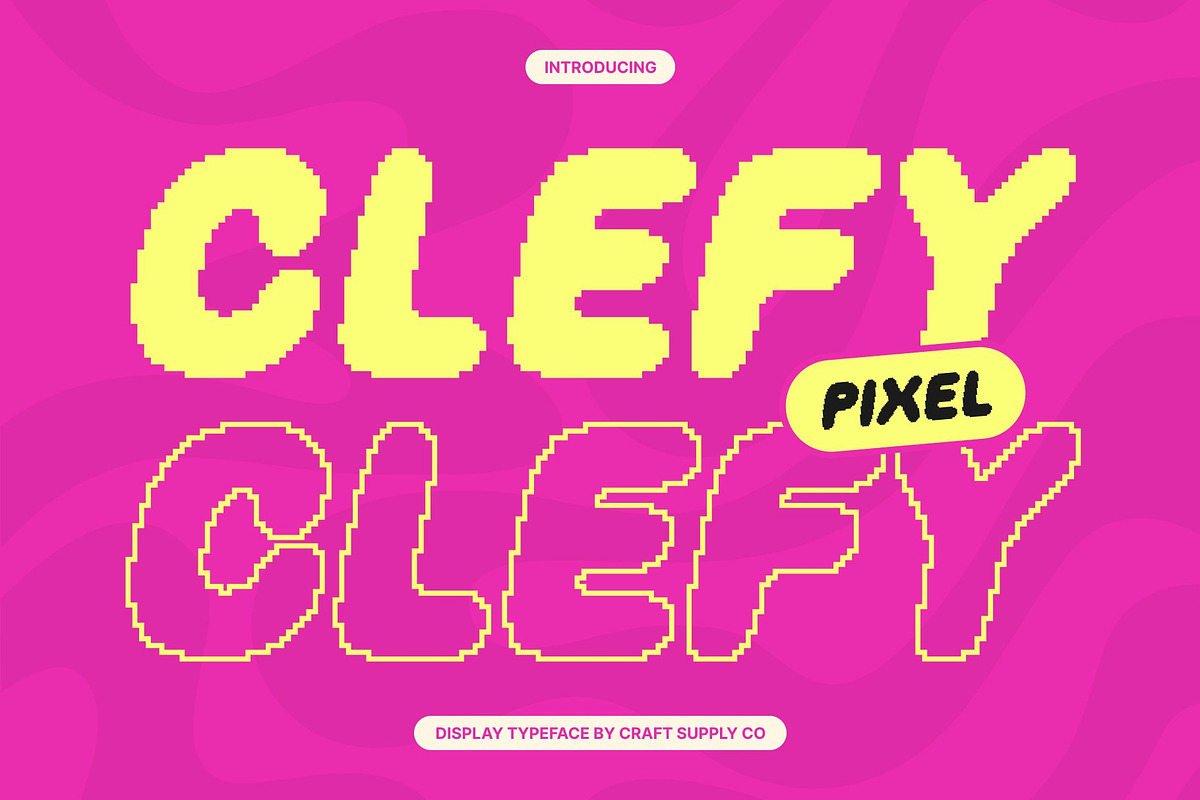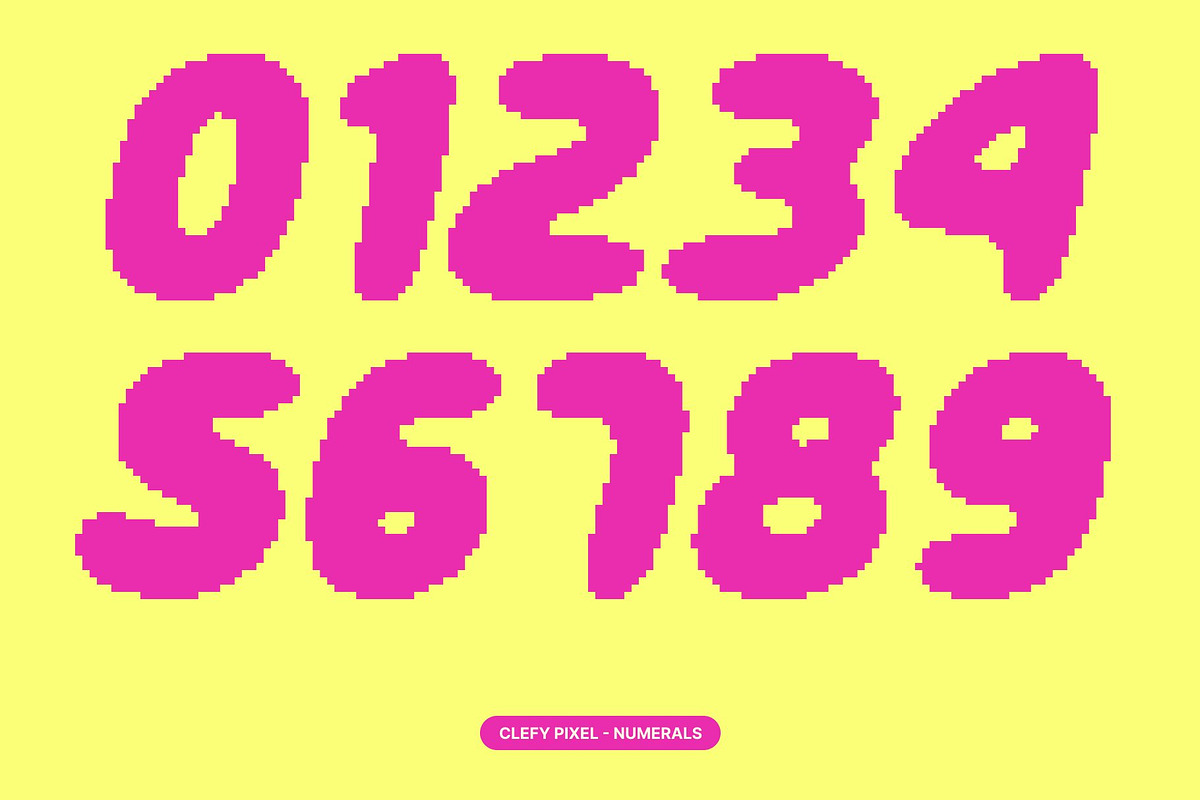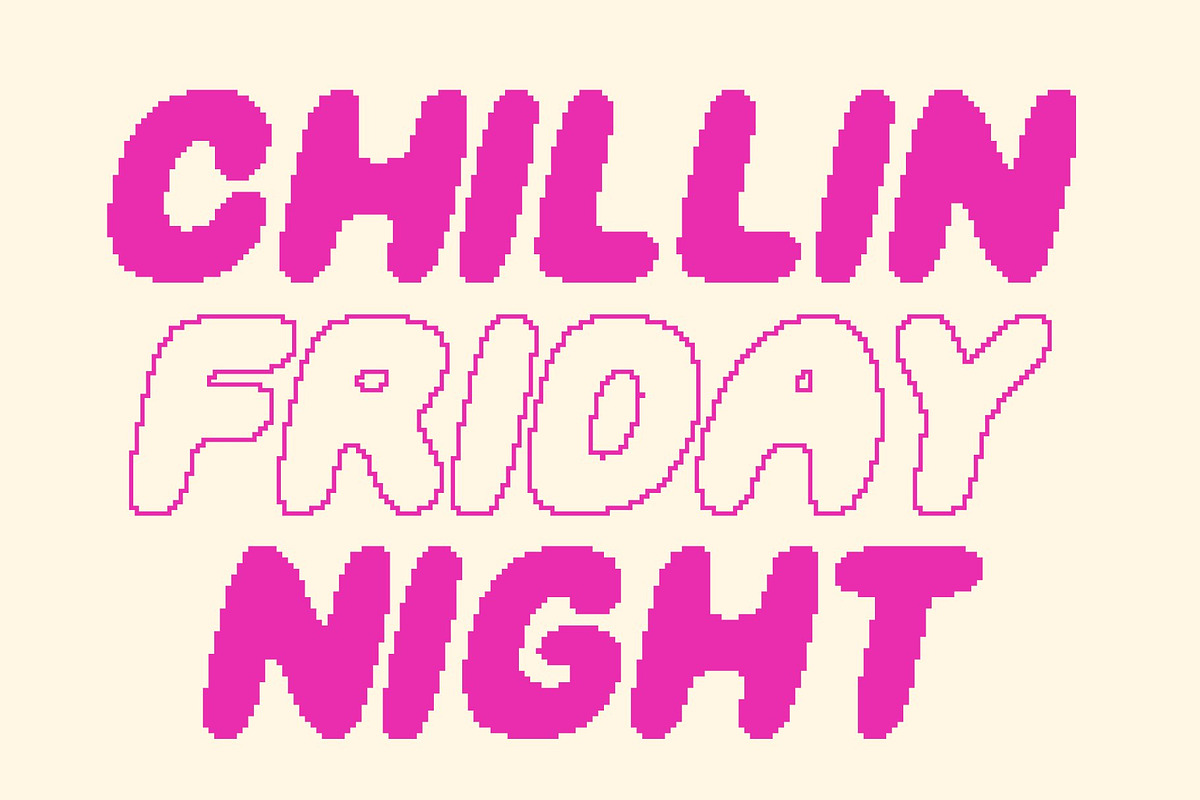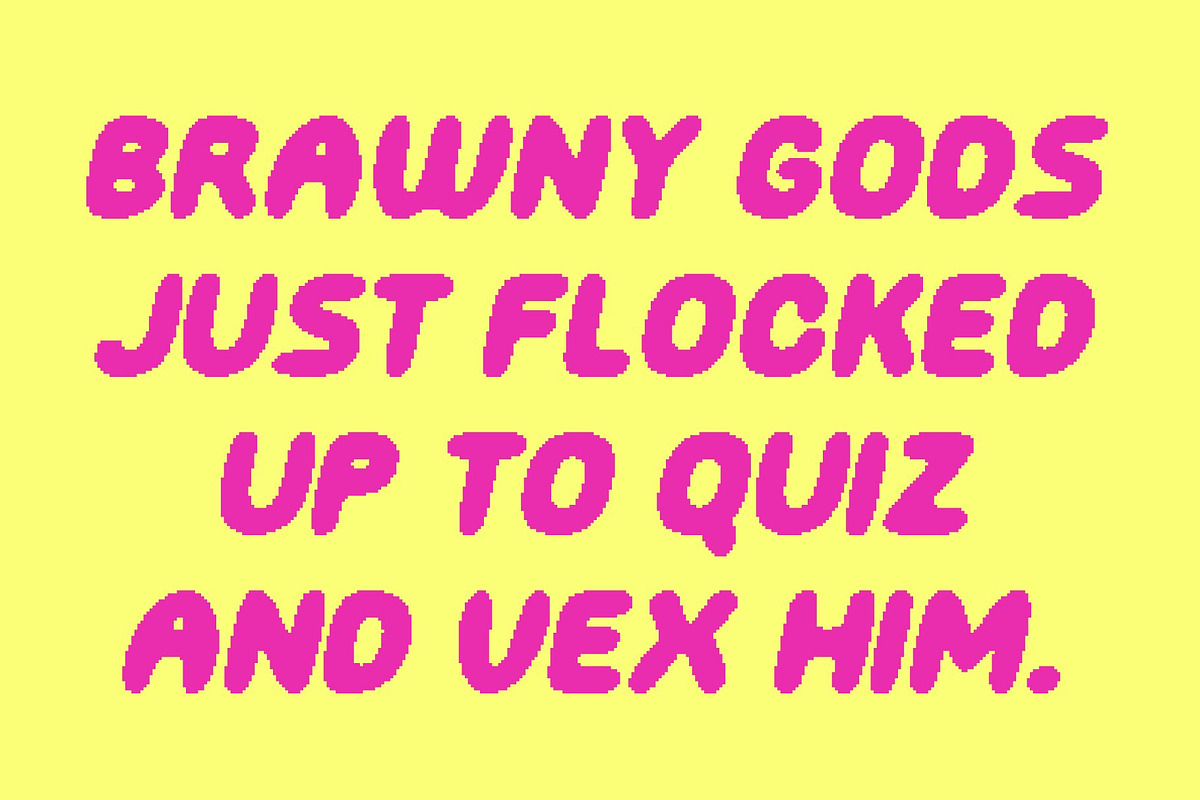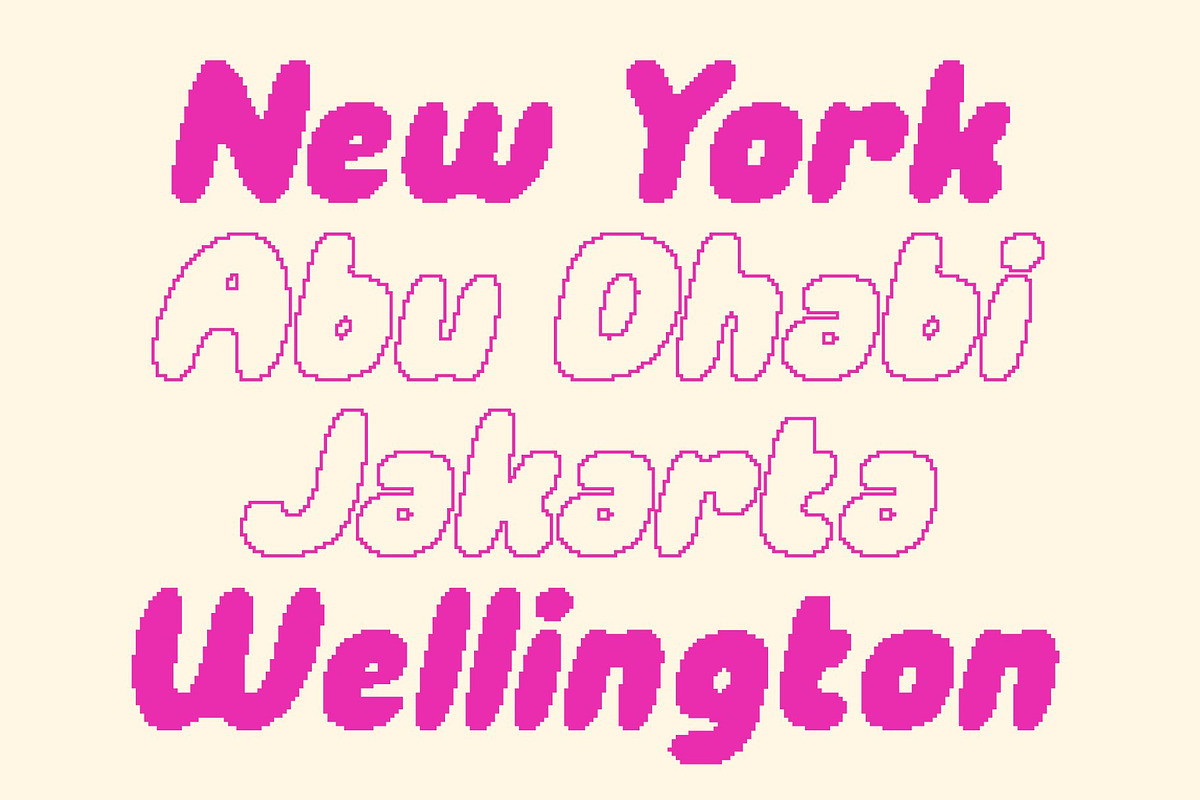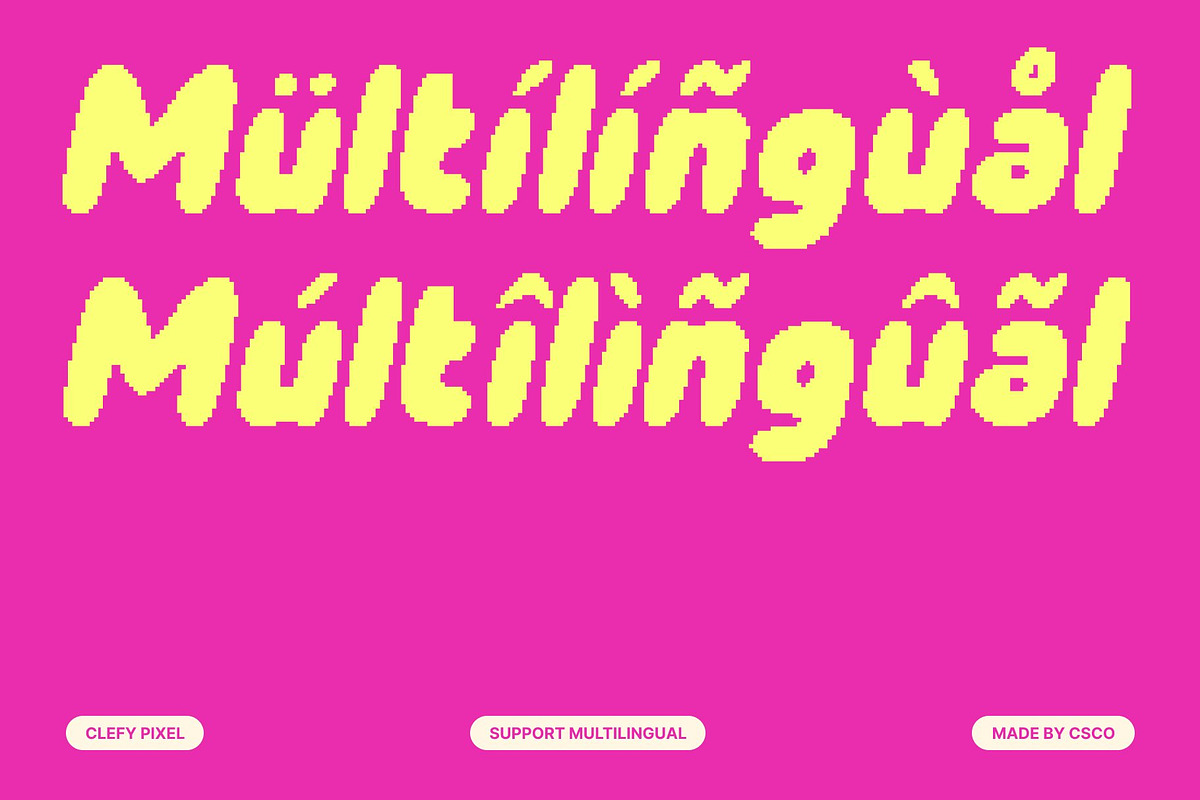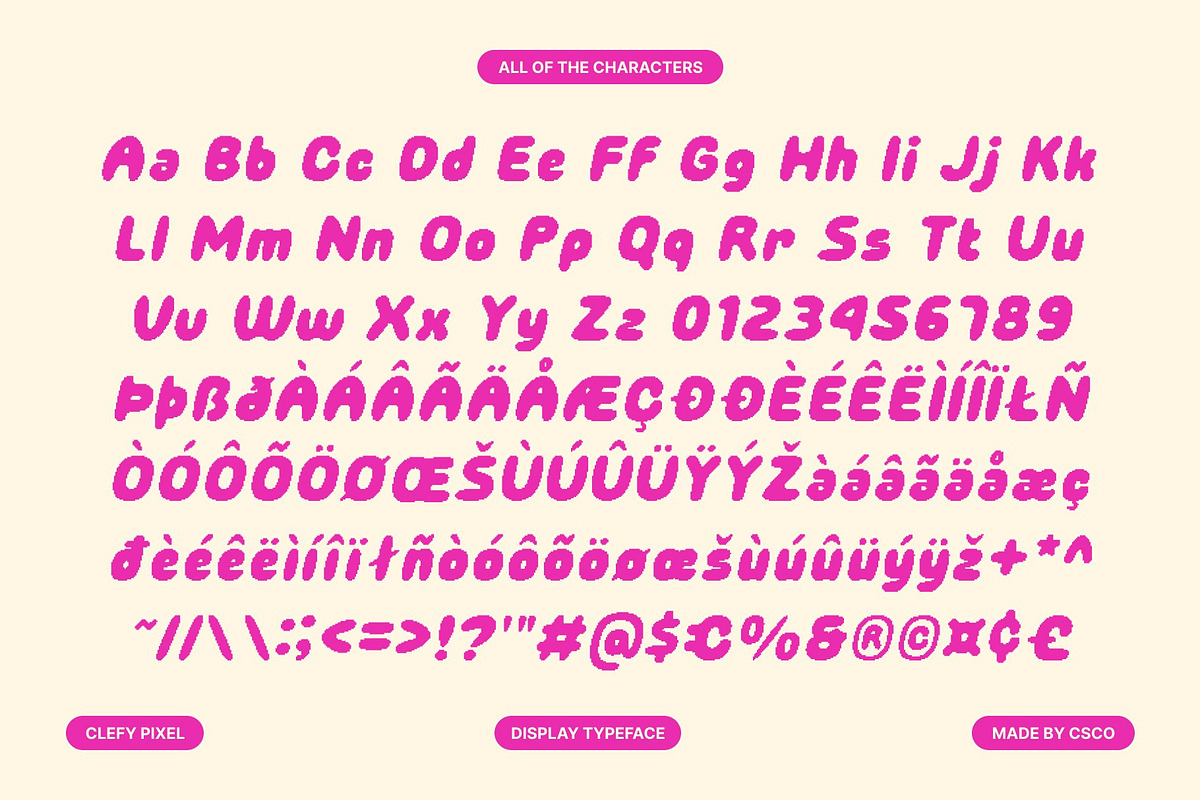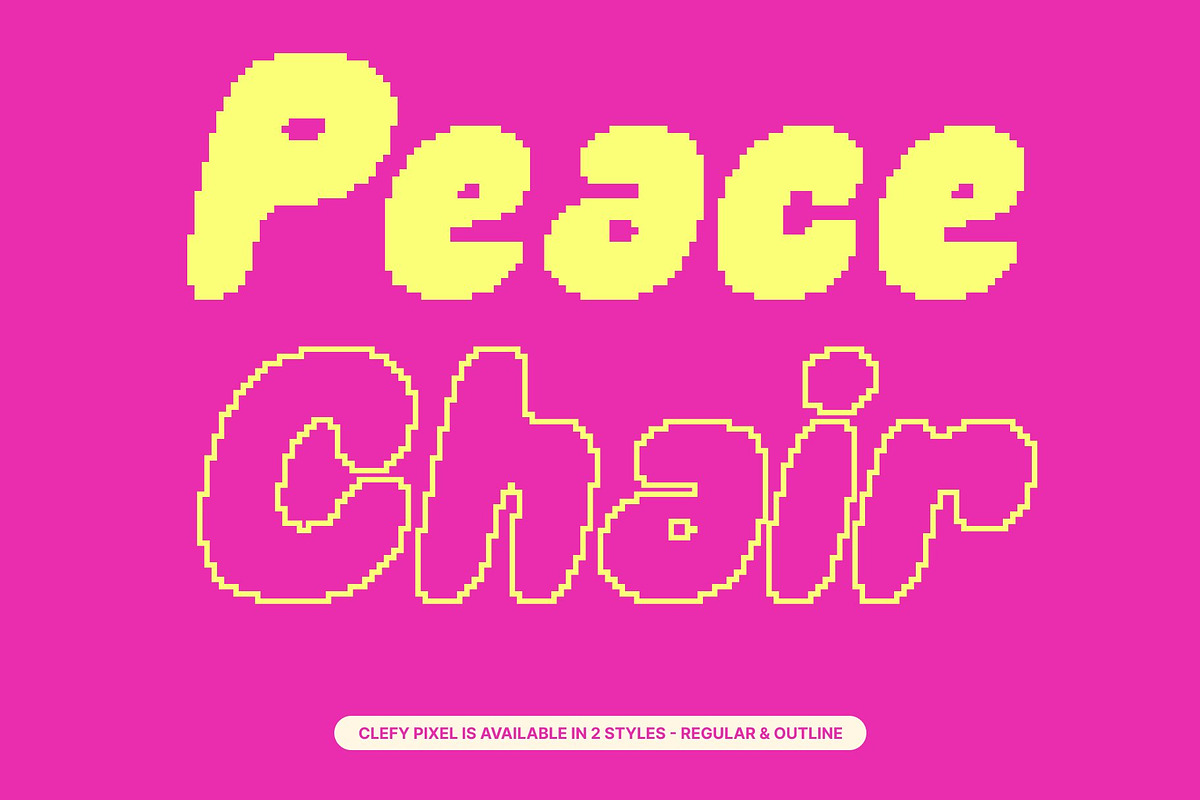
Clefy Pixel
Clefy Pixel – Fun and Funky Bubble Pixel Font
Retro Pixel Bubble with Funky Personality This is a playful display font that blends bubbly letterforms with a retro pixel aesthetic. Inspired by classic 8-bit visuals and old digital screens, its blocky pixel construction delivers nostalgic charm while maintaining a fun, funky personality. Rounded bubble shapes soften the pixel structure, creating a friendly yet bold appearance.
Old Digital Feel with Modern Energy Rooted in vintage arcade and early computer graphics, this font captures the essence of retro digital typography. At the same time, its clean structure and balanced spacing give it a modern edge, making the font feel fresh, readable, and visually engaging for today’s creative needs.
Eye-Catching and Playfully Expressive This font stands out instantly with its cheerful pixel forms and lively rhythm. The combination of bubbly curves and pixel edges creates a strong visual identity that grabs attention, making headlines, titles, and key messages pop with fun and excitement.
Perfect for Retro and Creative Projects Ideal for game designs, children’s projects, posters, logos, stickers, and digital artwork, this font brings playful nostalgia to any composition. Its retro 8-bit vibe and funky charm ensure your designs feel memorable, energetic, and full of creative personality.
- Clefy Pixel Regular
- Clefy Pixel Outline